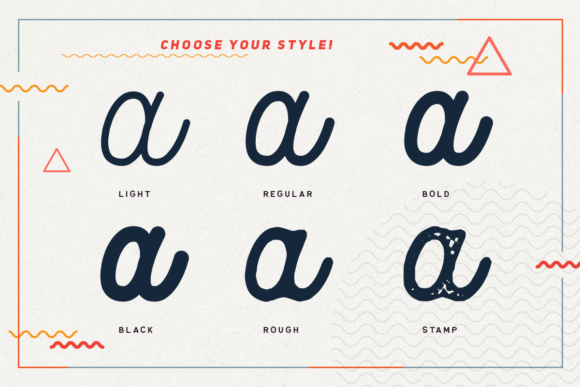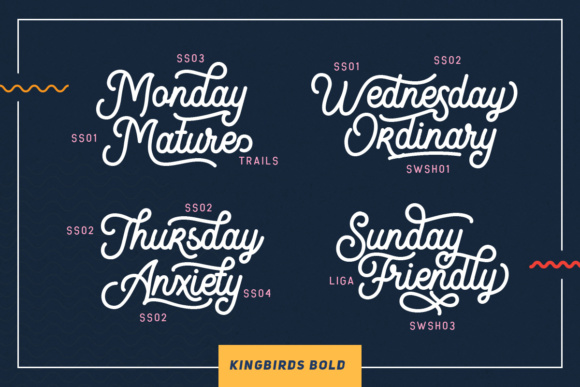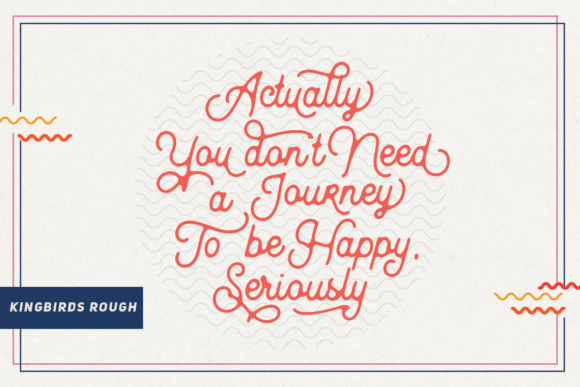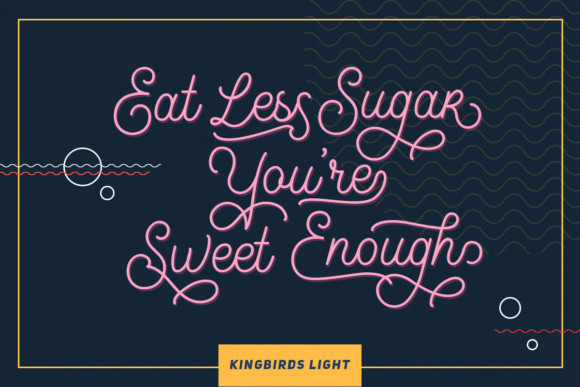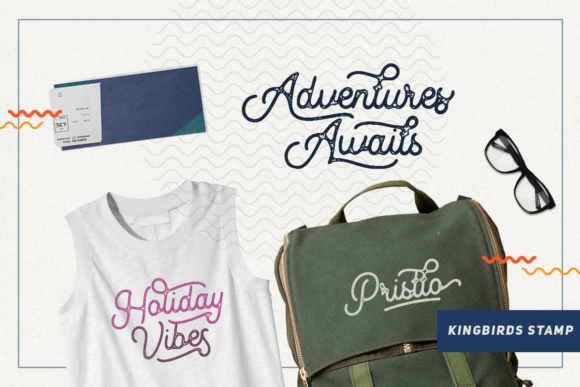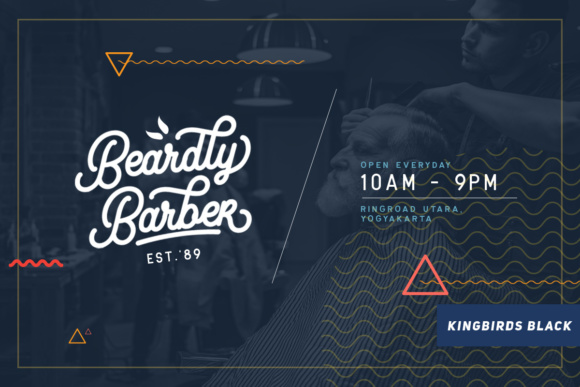
Introduction to Kingbirds Script Font
Introducing Kingbirds.
Tired of the ordinary monoline script Now we are proudly presenting you a one-of-a-kind monoline script that has six styles of monoline which will satisfy all your design needs.
Key Features of Kingbirds Script Font
Why Choose Kingbirds Script Font?
Kingbirds Script Font offers exceptional quality and versatility, making it a valuable addition to your design toolkit. Whether you’re creating for personal projects or commercial use, Kingbirds Script Font delivers professional results.